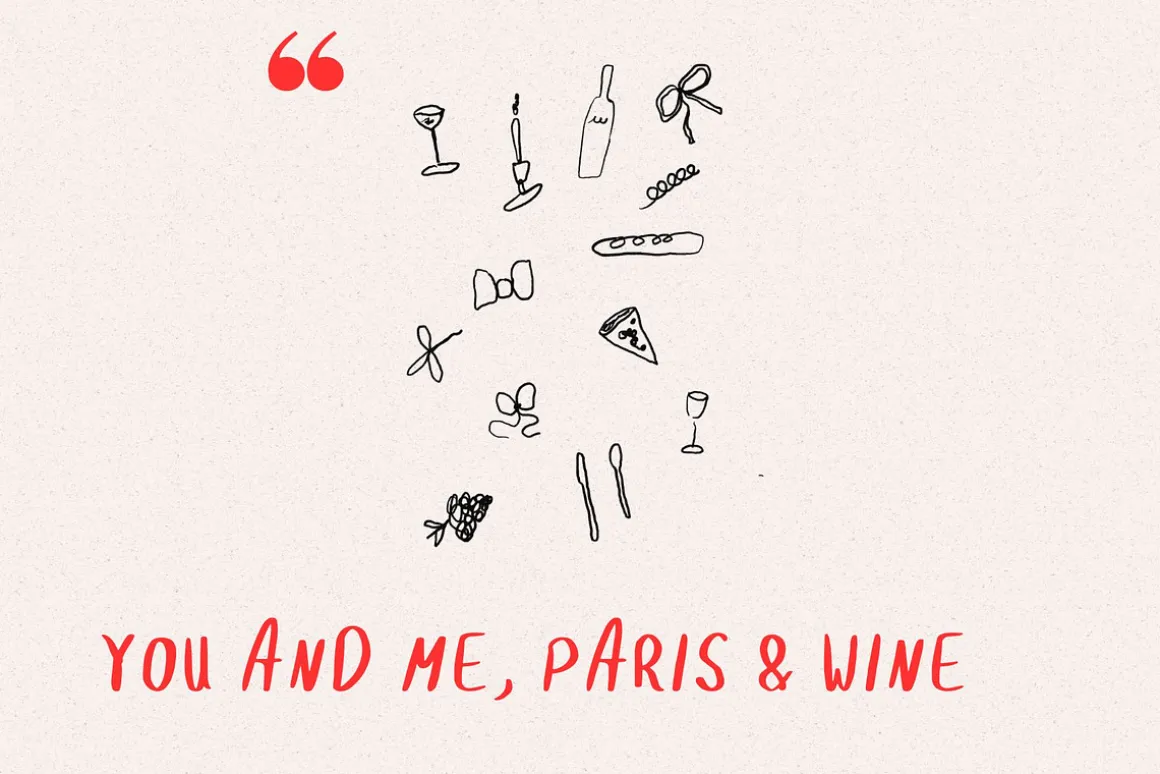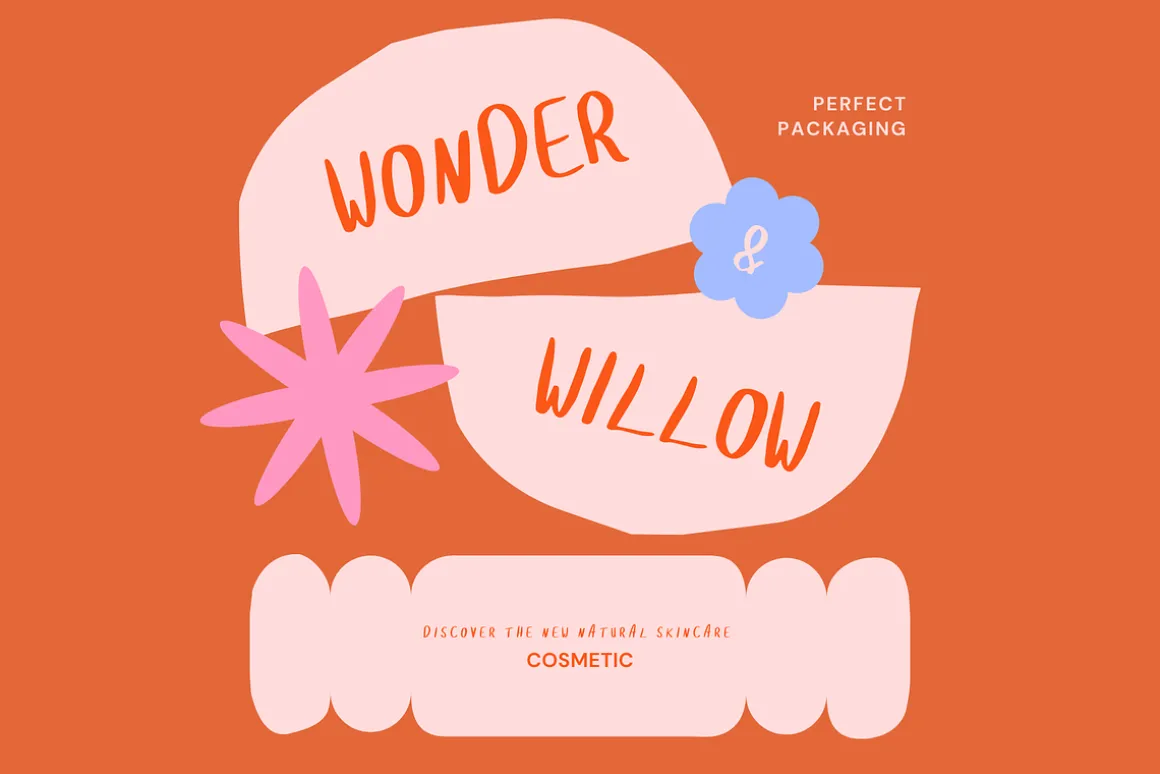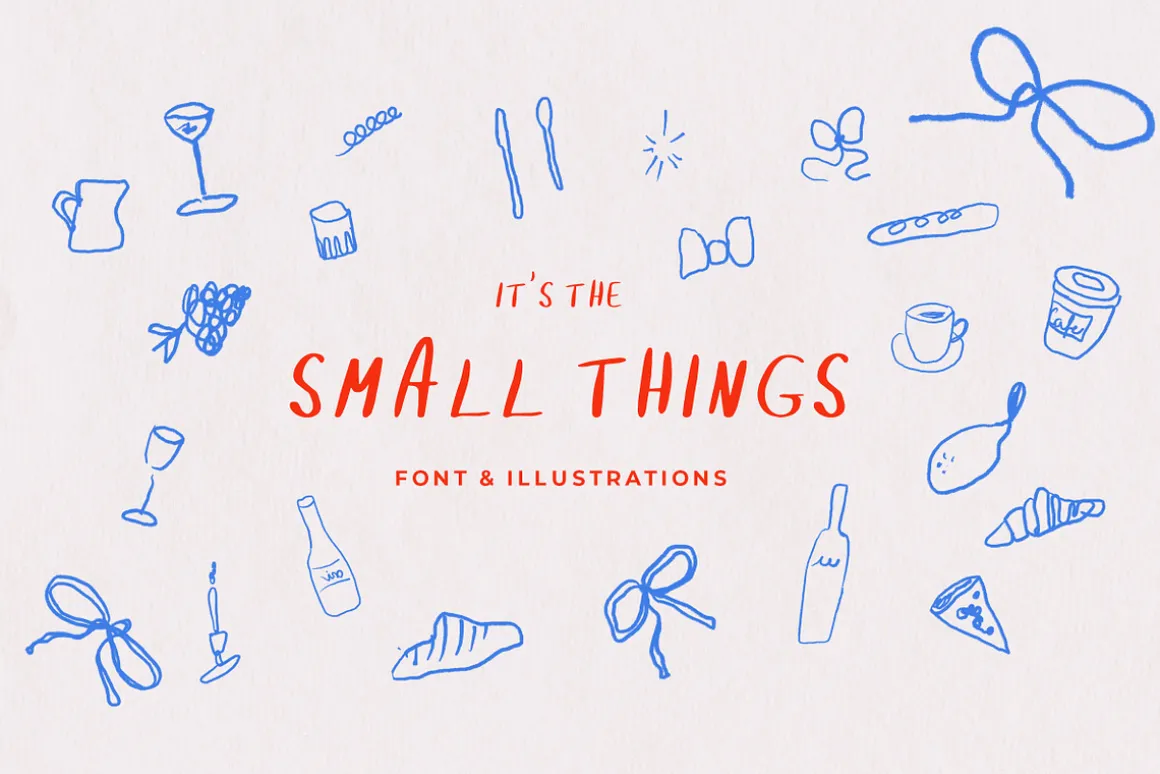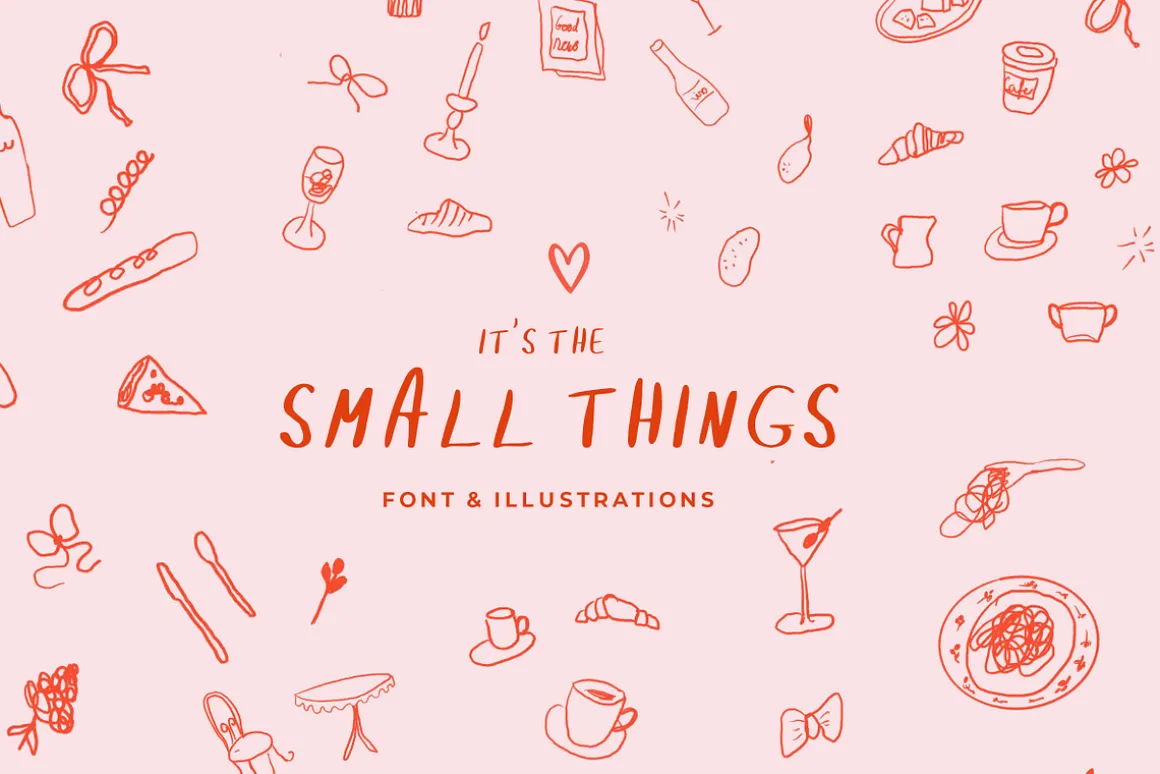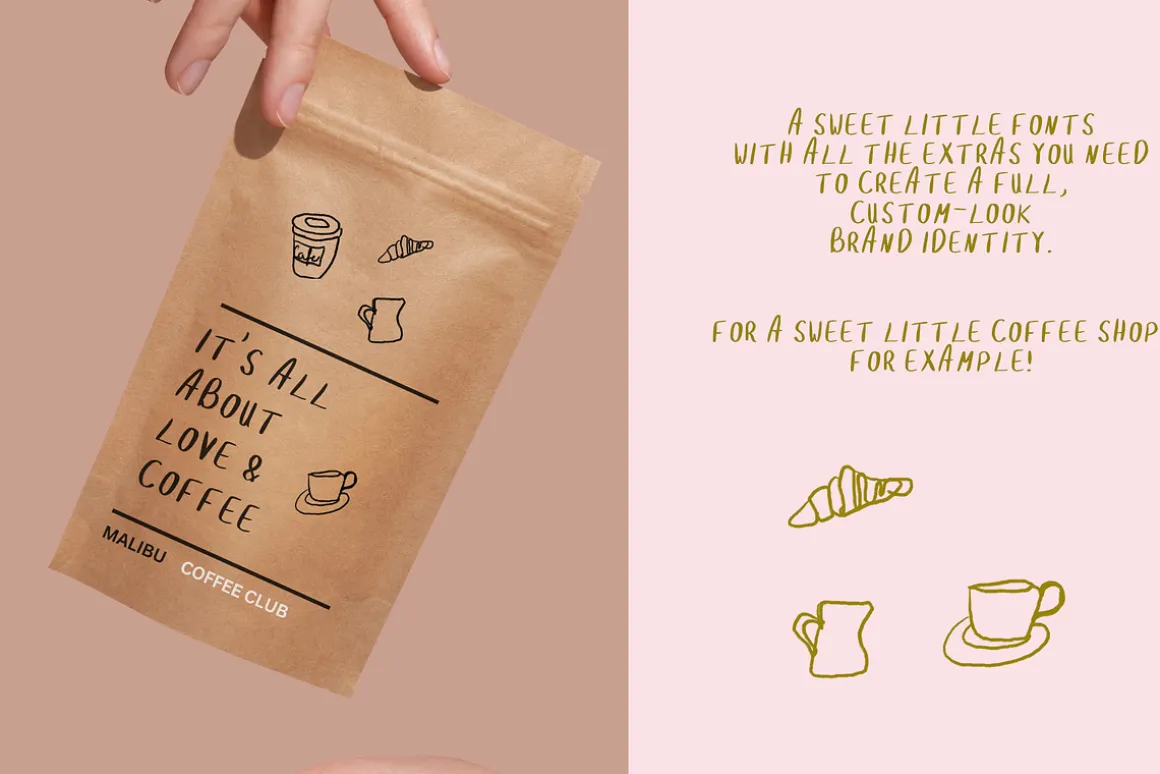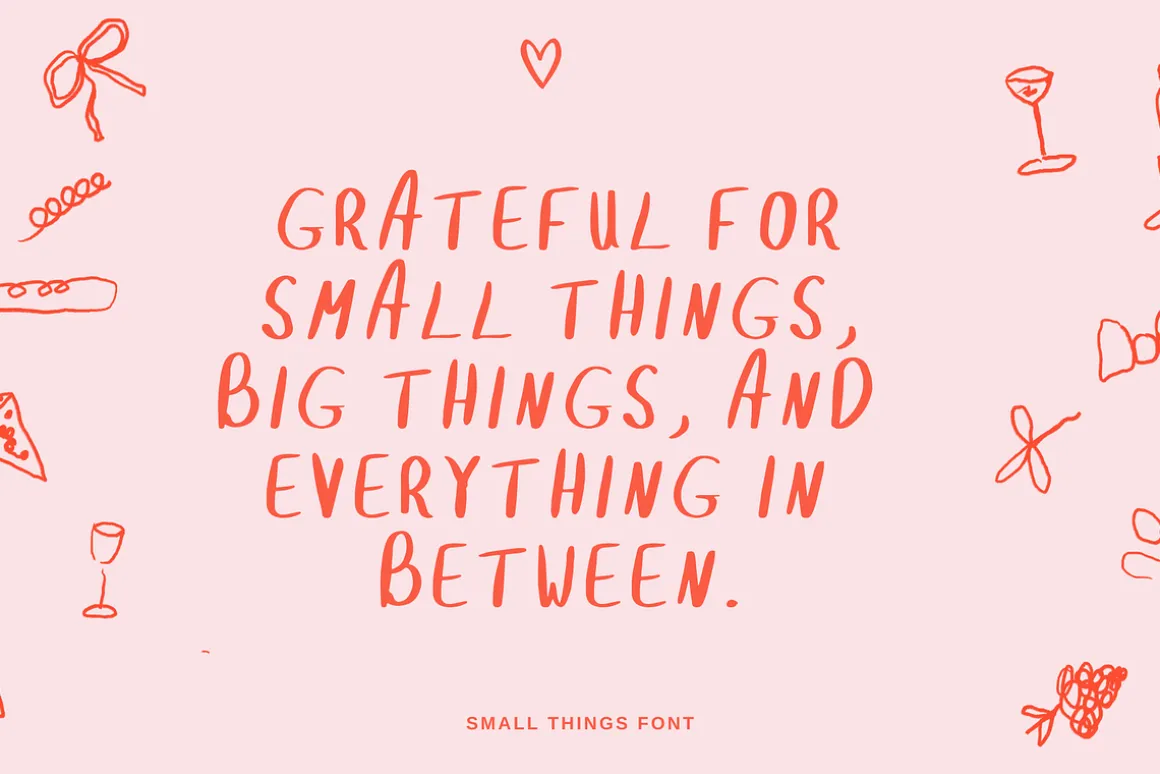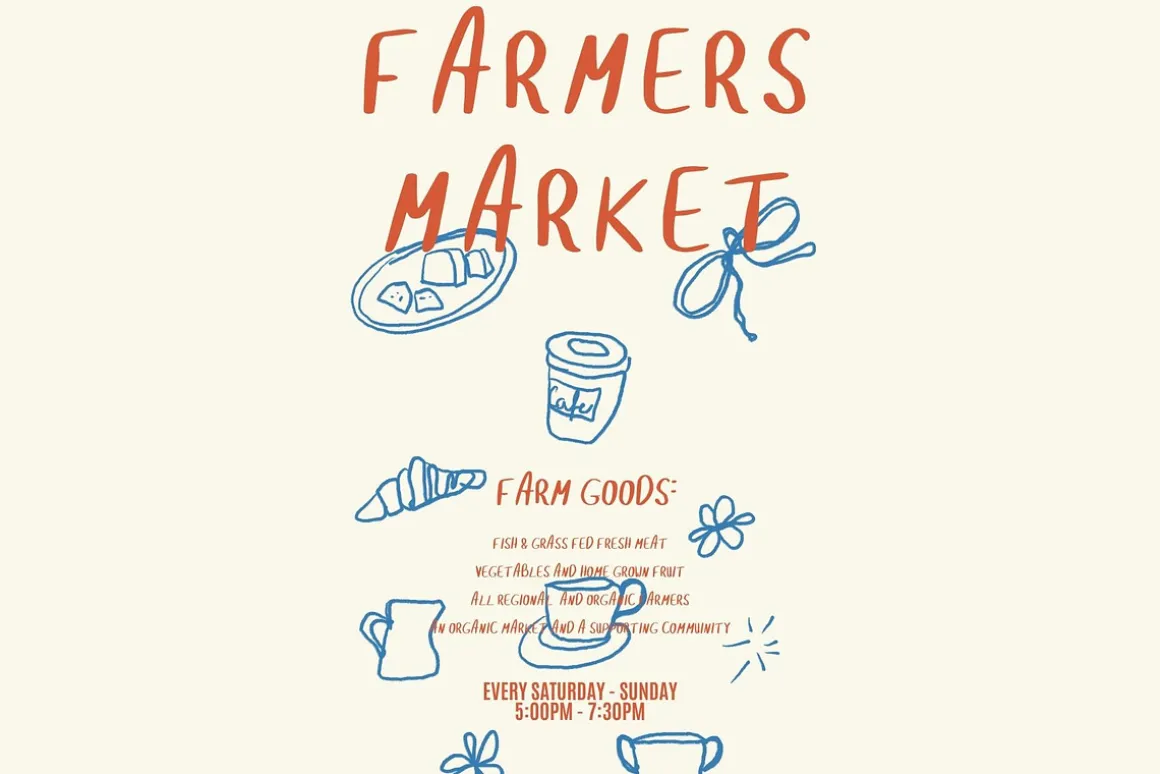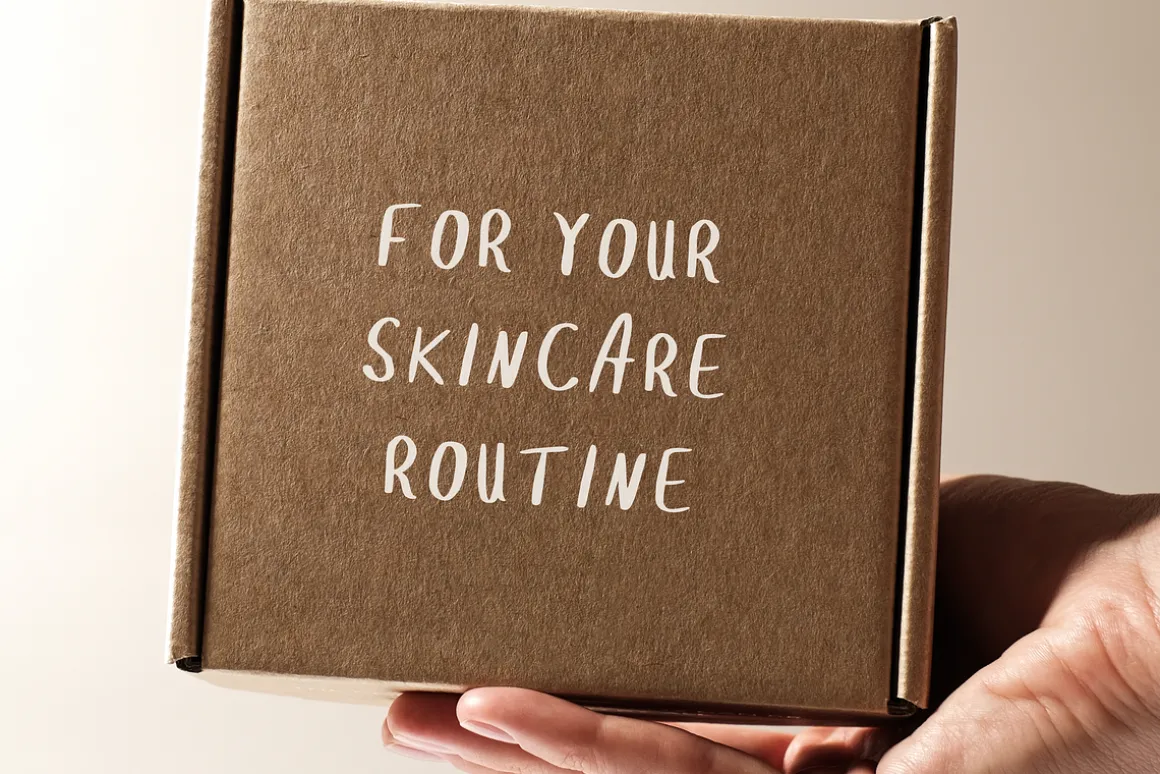
Time for slow Sundays, cosy morning routines and finding joy in the little things!Small Things is a hand lettered marker font (AND a package of cute illustrations!) that adds this exact vibe to your designs – finding happiness, slowing down and enjoying that little life! A display font with handmade illustrations, all about the small (and perfect) things in life.
Perfect for all things small business: Logo design and branding, super sweet baby clothes and nursery brands, wall art and printables, wedding invitations, fabrics and every design that needs a bit of slowing down. Perfect for a soap branding, organic cosmetic, small business branding, wall art and stationery designs.
Find gorgeous and handcrafted food icons, baguette, wine and wine glass icons, Summer line art, Dolce Vita line art, beautiful Paris cafe illustrations, croissants, pasta – all alongside a hand lettered script with lots of alternate letters for an extra handmade look and feel.